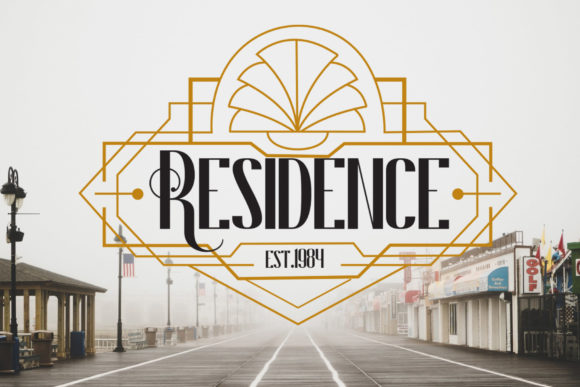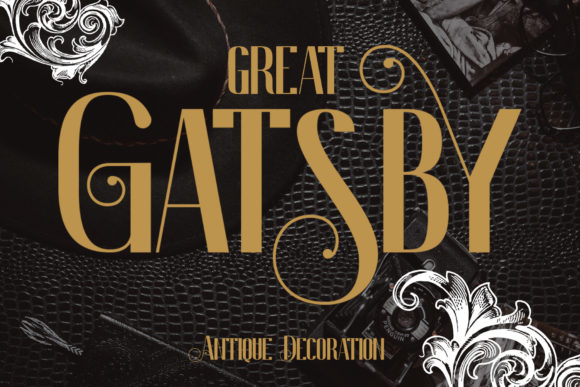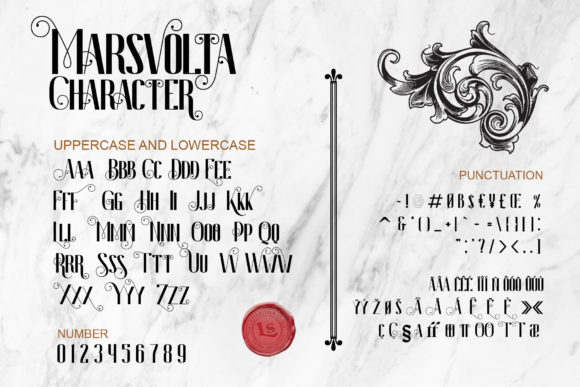
Introduction to Marsvolta Font
Remember that moment when you stumbled upon the perfect font to elevate your design project? The one that made your creative vision come alive, and you knew you had to have it in your library? For many designers, that moment is what makes the long hours and endless brainstorming sessions worth it.
That’s exactly what the Marsvolta Font offers – a chance to unlock new possibilities and take your designs to the next level. This retro and whimsical display font is a game-changer, perfect for designers looking to add a touch of high-quality uniqueness to their projects.
Marsvolta Font Key Features
- High-quality design resource ideal for creative projects, offering a unique and modern aesthetic.
- Features a transparent background, making it perfect for designers who want to add a touch of sophistication to their designs.
- Comes in a single font size, but can be easily scaled to fit various design needs, with a recommended resolution of 300 DPI for optimal quality.
- Designed to be highly legible, making it perfect for use in a variety of creative projects, from logos and branding to digital art and typography.
Honest Review: Marsvolta Font
Marsvolta Font has been a game-changer for my creative project. I stumbled upon it while searching for free design resources, and I’m glad I did. The high-quality font is perfect for adding a futuristic touch to my designs.
One of the things I love about Marsvolta Font is its transparent background, which makes it super easy to customize and style. It’s also incredibly versatile, with a wide range of styles and weights to choose from.
- ✨ Transparent background for easy customization
- ✨ Wide range of styles and weights to choose from
Overall, I’m really impressed with Marsvolta Font. It’s a fantastic addition to any designer’s toolkit, and I highly recommend it for any creative project.
Tips for Getting the Most Out of Marsvolta Font
To get the most out of the Marsvolta Font, experiment with different font sizes, colors, and styles. You can also pair it with other fonts to create a unique design. Don’t hesitate to adjust the font spacing and alignment to suit your creative project.
The Marsvolta Font is ideal for graphic design, branding, and creative projects. It’s perfect for use in logos, business cards, brochures, and social media graphics. Its high-quality design and transparent background make it a versatile resource for designers and non-designers alike.